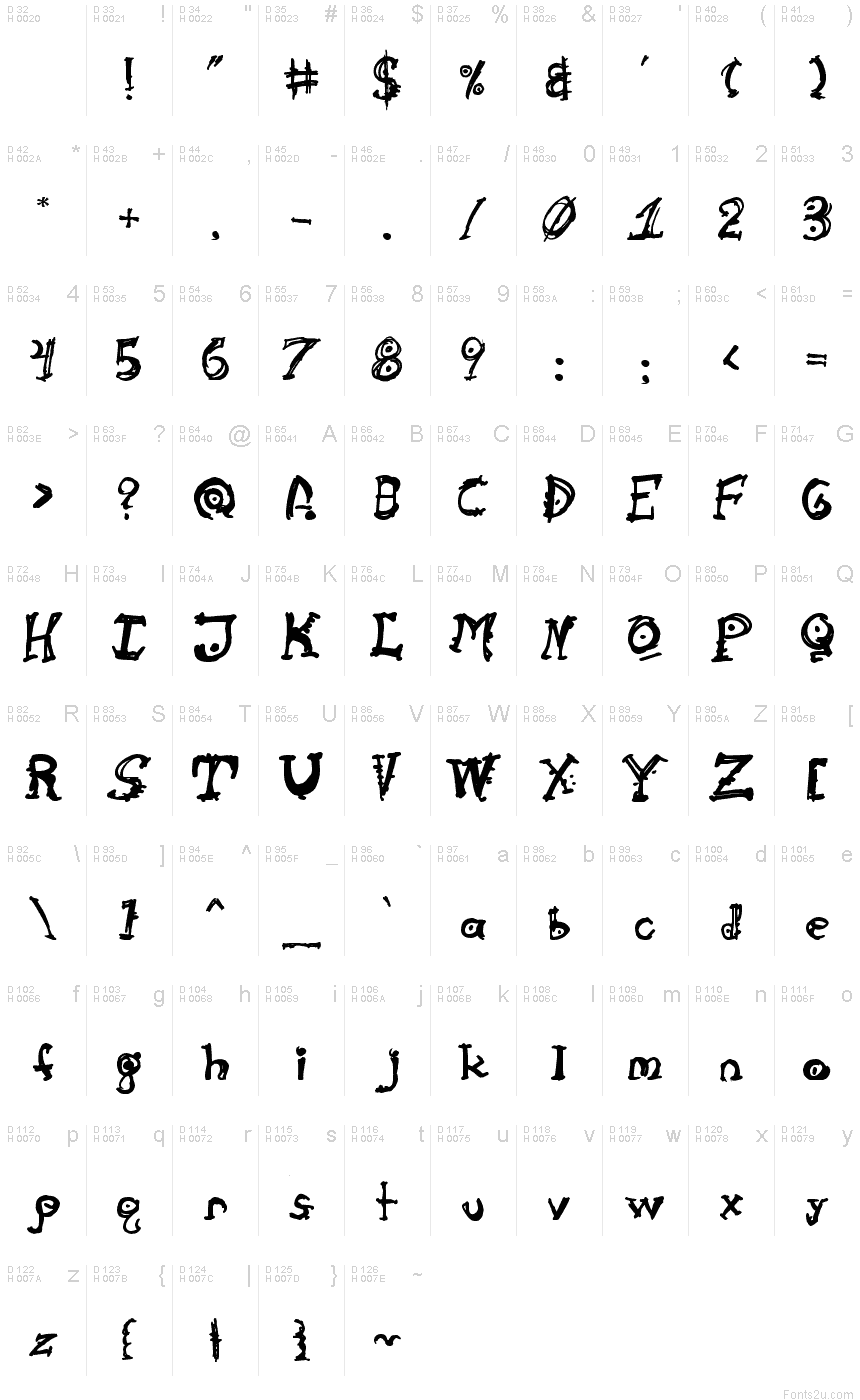
Cathzulu
Cathzulu font by OMEGA Font Labs is a free trash script font that drags classic horror into a squirmy, ink-splattered grin. Its thick, blobby strokes twist like tentacles, with jagged bumps and uneven curves that feel hand-scratched on damp parchment. The letters cluster tightly, creating a dense, creepy rhythm that reads clearly while still looking wonderfully unhinged.
This free font shines on Halloween posters, spooky game titles, haunted house signage, eerie book covers, event flyers, and horror-themed social graphics. Using Cathzulu instantly gives headlines a pulpy, cult-classic vibe, especially at large sizes where every crooked edge shows. Pair it with a clean, neutral sans serif for body text to keep the chaos in the titles where it belongs.